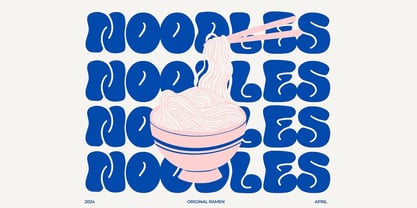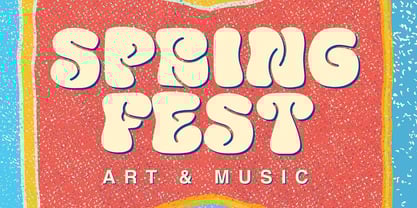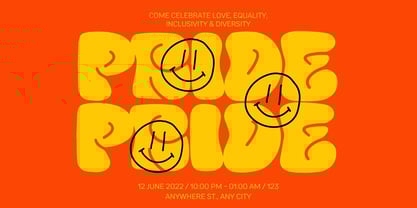
Smint
by Maghrib Type
The Smint Font Family was designed by Rizky Setyaludin and published by Maghrib Type. Smint contains 1 styles. More about this family
Smint is a bold and playful display font that radiates cheerful, colorful energy. With its rounded letterforms and smooth flow, this font brings a fresh retro-pop vibe that’s perfect for projects that need to feel fun, unique, and attention-grabbing.
Ideal for posters, packaging, branding, merchandise, social media, and any design aimed at kids or creative products. Its chunky, friendly shapes make every word feel alive and full of character.
Make Smint your go-to choice when you want designs that are bold, warm, and sure to leave a joyful impression on anyone who sees them.
Designers: Rizky Setyaludin
Foundry: Maghrib Type